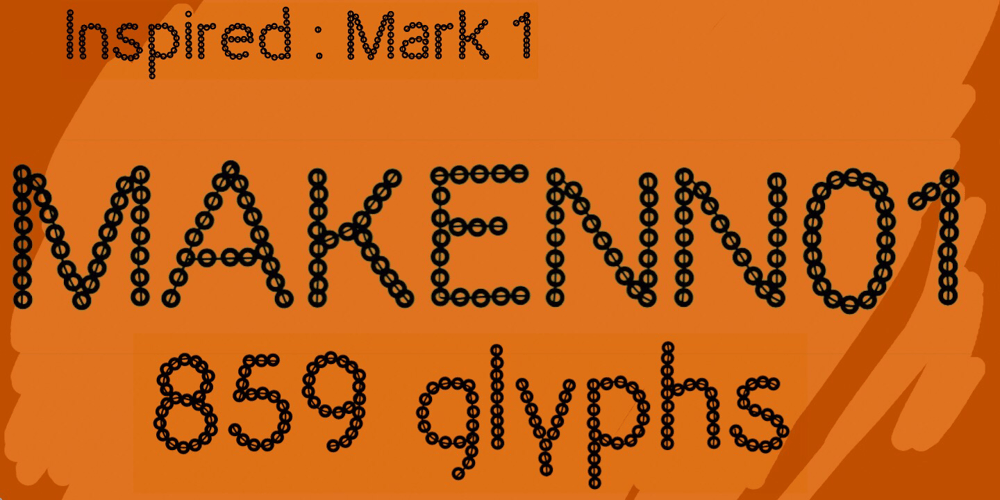
Makenn01 Font Family was designed by Carmen Garriga Ríos and published by giftype. Makenn01 contains 1 styles and family package options. Font Makenn01 is inspired by Asen Petrov’s Perfograma font , based on in the IBM Harvard Mark 1 machines the first electromagnetic computer presented by Howard Aiken this november 84 years ago ,in fact this basic technology received its instructions and data trough punched tapes . It is therefore an interpretation in wich circumferences have been used instead of circles linked with a line , and the name used also refers to Mark 1 calling it Makenn 01 , giving a touch of identity since this name resembles , Carmen my name , the 01, is like a restart of 0 , with the 1 of the Mark 1. It has Greek and Cyrillic characters.